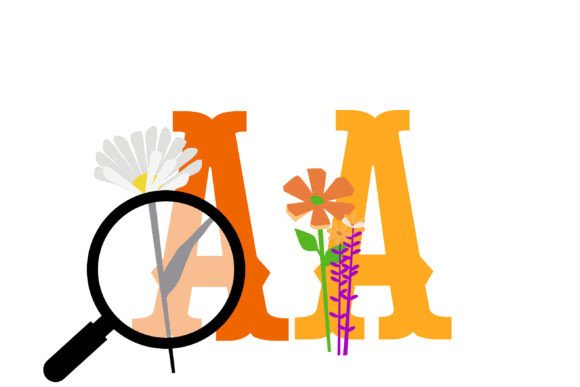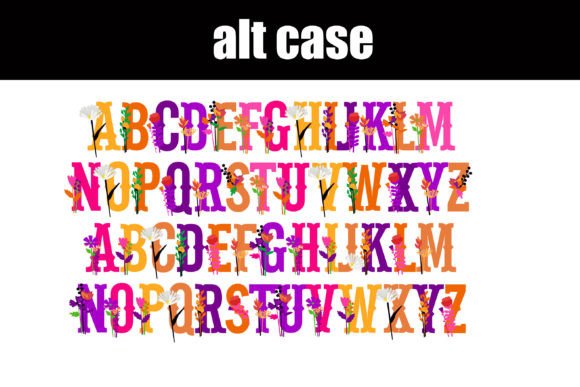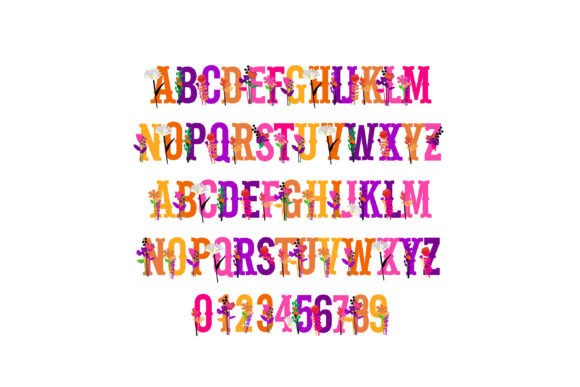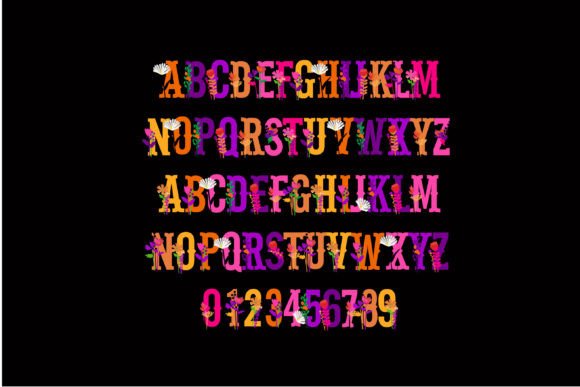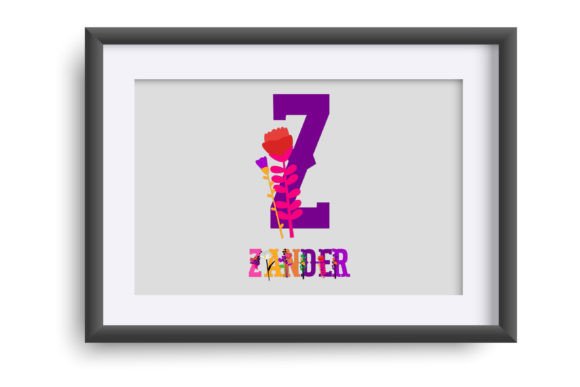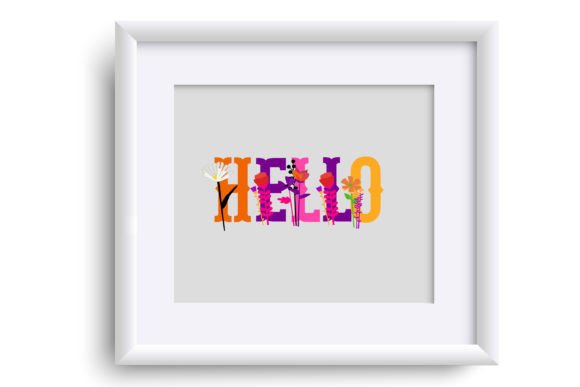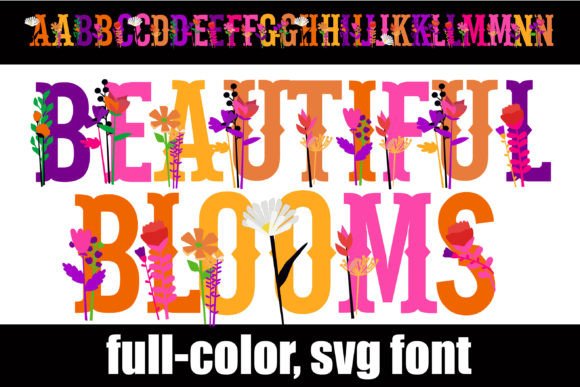
Introducing Beautiful Blooms Font: Elevate Your Designs with Stunning Florals
Are you tired of using the same old fonts in your designs? Do you want to add a touch of personality and whimsy to your creations? Look no further than the Beautiful Blooms Font, a stunning full-color font featuring beautiful florals on a serif font. This gorgeous font is perfect for designers and crafters who want to take their designs to the next level.
What is Beautiful Blooms Font?
Beautiful Blooms Font is a unique and eye-catching font that combines a classic serif font with beautiful, full-color florals. The font features an alt case with additional colors that can be accessed through your system or Silhouette’s glyph map. This means you can easily switch between different colors and styles to create the perfect look for your design.
The Power of Full-Color SVG Fonts
Full-color SVG fonts are a game-changer for designers and crafters. They offer a level of creativity and flexibility that’s hard to achieve with traditional fonts. With a full range of colors and styles to choose from, you can create anything from simple text logos to complex illustrations. Plus, SVG fonts are scalable, so you can use them in a variety of projects, from business cards to billboards.
Benefits of Using Beautiful Blooms Font
So, why choose Beautiful Blooms Font? Here are just a few benefits of using this stunning font:
• Add a touch of personality: With its unique and eye-catching florals, Beautiful Blooms Font is the perfect way to add some personality to your designs.
• Stand out from the crowd: This font is sure to make your designs stand out from the crowd. Whether you’re creating business cards, invitations, or social media graphics, Beautiful Blooms Font will help you grab attention.
• Easily customizable: With an alt case and additional colors to choose from, you can easily customize Beautiful Blooms Font to fit your design needs.
• Scalable: Like all SVG fonts, Beautiful Blooms Font is scalable, so you can use it in a variety of projects, from small to large.
Tips and Inspiration for Using Beautiful Blooms Font
Now that you know more about Beautiful Blooms Font, here are some tips and inspiration for using it in your designs:
• Use it for spring and summer designs: The florals in Beautiful Blooms Font are perfect for spring and summer designs, such as garden party invitations or summer sale signs.
• Pair it with bold colors: The bold, bright colors in Beautiful Blooms Font pair perfectly with bold colors. Try pairing it with a bold background or contrasting text for a statement look.
• Experiment with different styles: Don’t be afraid to experiment with different styles and colors in Beautiful Blooms Font. Try using it in combination with other fonts or graphics for a unique look.
Beautiful Blooms Font is a stunning full-color font that’s perfect for designers and crafters who want to add a touch of personality to their designs. With its unique florals, scalable SVG technology, and easily customizable colors, this font is sure to take your designs to the next level. Whether you’re creating business cards, invitations, or social media graphics, Beautiful Blooms Font is the perfect choice.